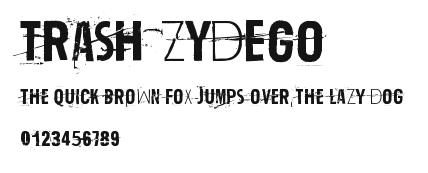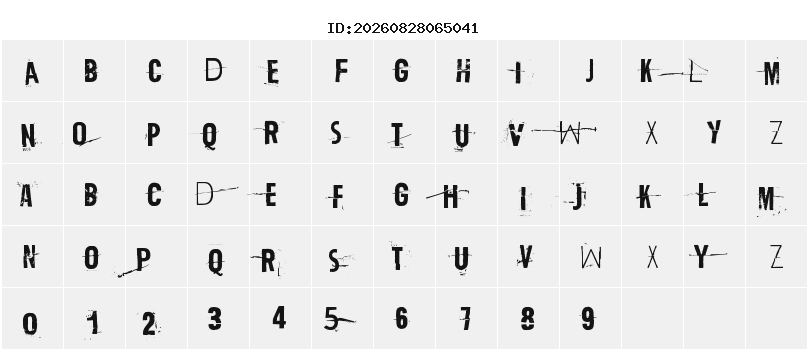
Trash Zydego Preview
• Font Name: Trash Zydego
• Full Font Name: Trash Zydego
About Trash Zydego.otf
Trash Zydego.otf is a modern, elegant sans-serif font designed for ultimate readability and visual harmony. Perfect for branding, headlines, web design, and print materials.